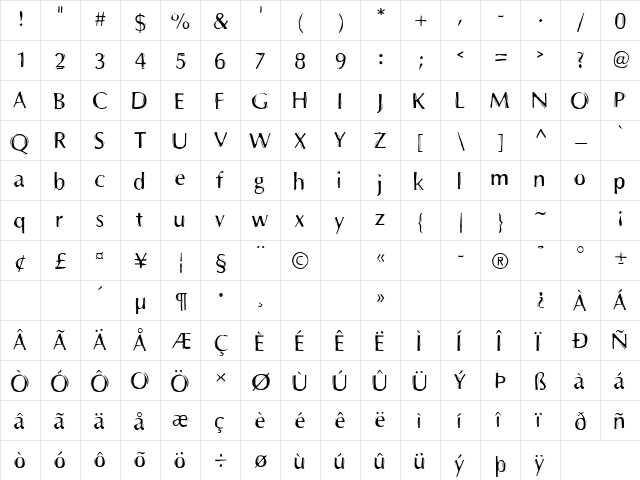
P22Prehistoric Pen Font Preview
P22Prehistoric Pen
Design Context for P22Prehistoric Typeface
P22Prehistoric is a composed and adaptable typeface that performs quietly and consistently across a wide range of design contexts.